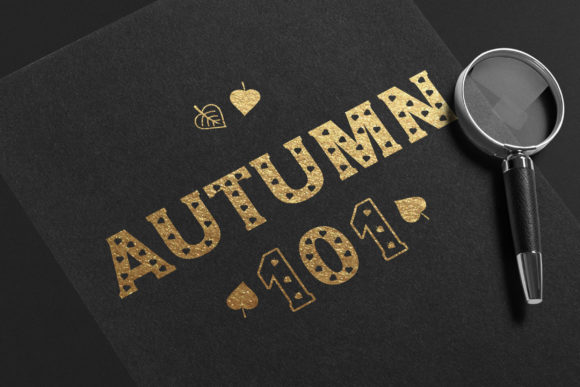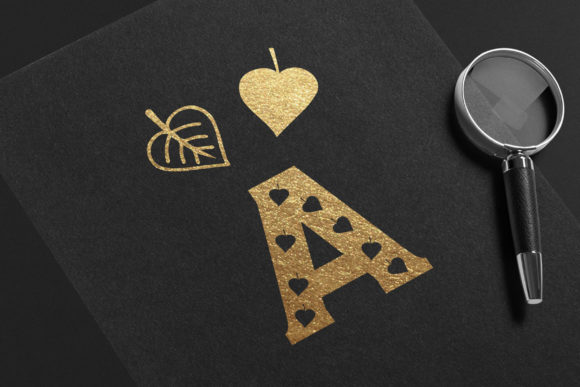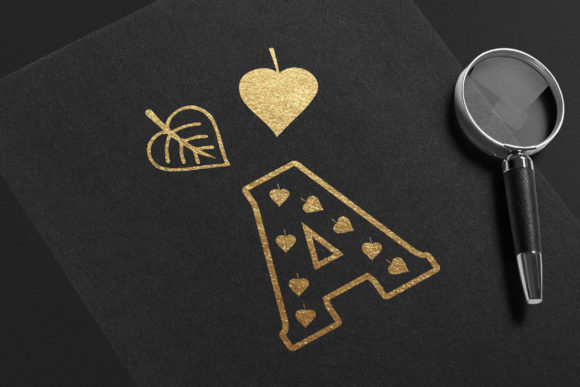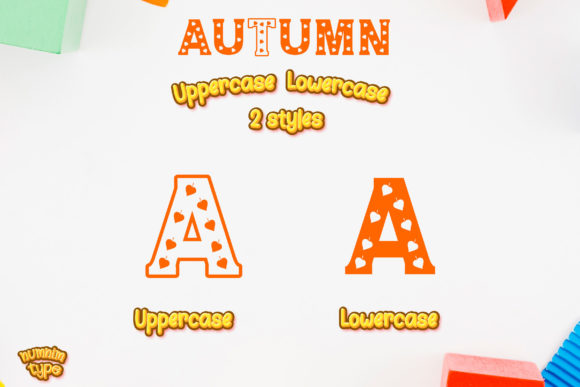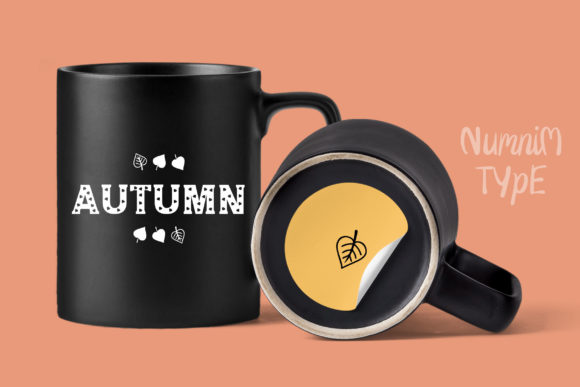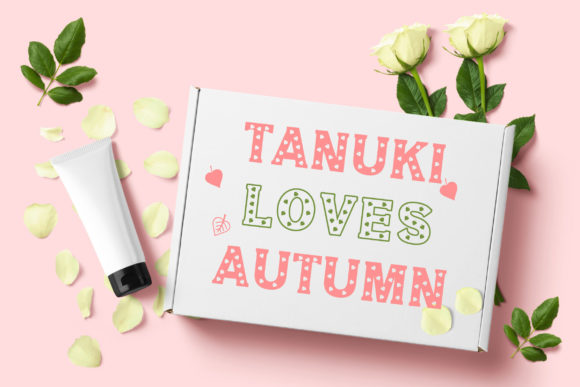
The Magic of Autumn Font: A Designer’s New Best Friend
I’ll never forget the design project that led me to discover Autumn Font. I was working on a fall-themed branding campaign for a cozy coffee shop, and I was struggling to find the perfect font to capture the warmth and coziness of the season. That’s when I stumbled upon Autumn Font, and it instantly became my go-to choice. With its bold, thick lettering and cool tone, it perfectly embodied the spirit of autumn.
An Honest Review of Autumn Font
• ✨ PUA encoded for easy access to all glyphs and swashes, making it a breeze to add unique touches to my designs.
• ✅ Bold and thick lettering that’s perfect for making a statement in any design.
• 🎉 Versatile and highly customizable, allowing me to experiment with different styles and effects.
While Autumn Font is an amazing addition to any design project, there are a few things to keep in mind:
• 🤔 May not be suitable for body text due to its bold and thick lettering, which can be overwhelming for longer blocks of text.
• ⚠️ Some swashes and glyphs may not work well at smaller font sizes, so be sure to test and adjust accordingly.
The Story Behind Autumn Font
Autumn Font was designed with the goal of capturing the essence of the fall season. The designer, inspired by the vibrant colors and cozy atmosphere of autumn, created a font that’s both bold and inviting. With its PUA encoding and extensive range of glyphs and swashes, Autumn Font is perfect for designers looking to add a unique touch to their projects.
Q: Can I use Autumn Font for body text?
A: While Autumn Font is a beautiful font, it’s better suited for headlines and titles due to its bold and thick lettering. For body text, consider using a font with a more traditional style.